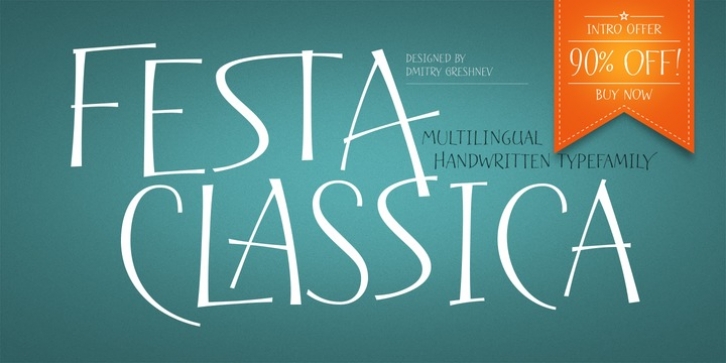
Festa Classica downloadDesigner: Dmitry Greshnev
Publisher: Green Type
Festa Classica is a multilingual handwritten type family, supports Latin, Cyrillic, Greek, Eastern European, Baltic and Turkish scripts.
The family uses a large number of useful Open Type features: ligatures, swashes and stylistic alternates. This makes it possible to achieve variability in typing and simulate lettering with this font.